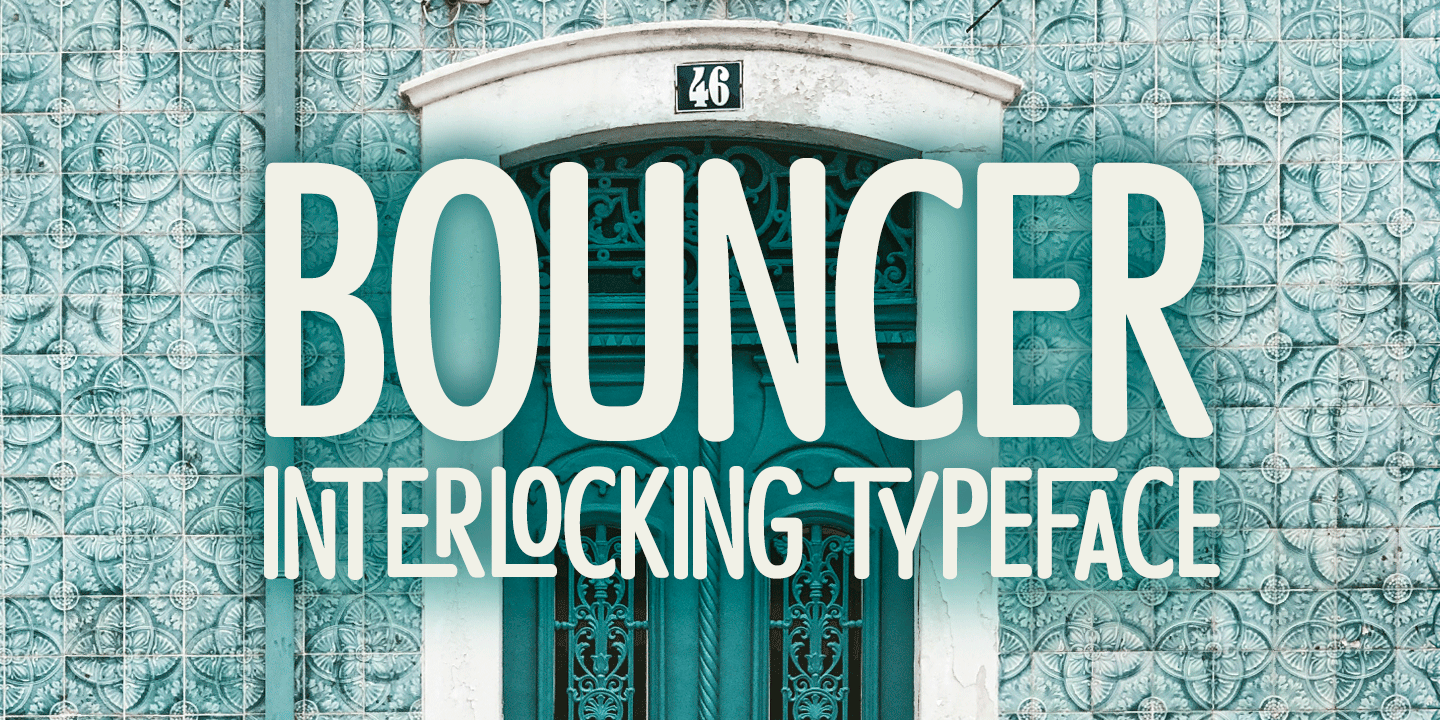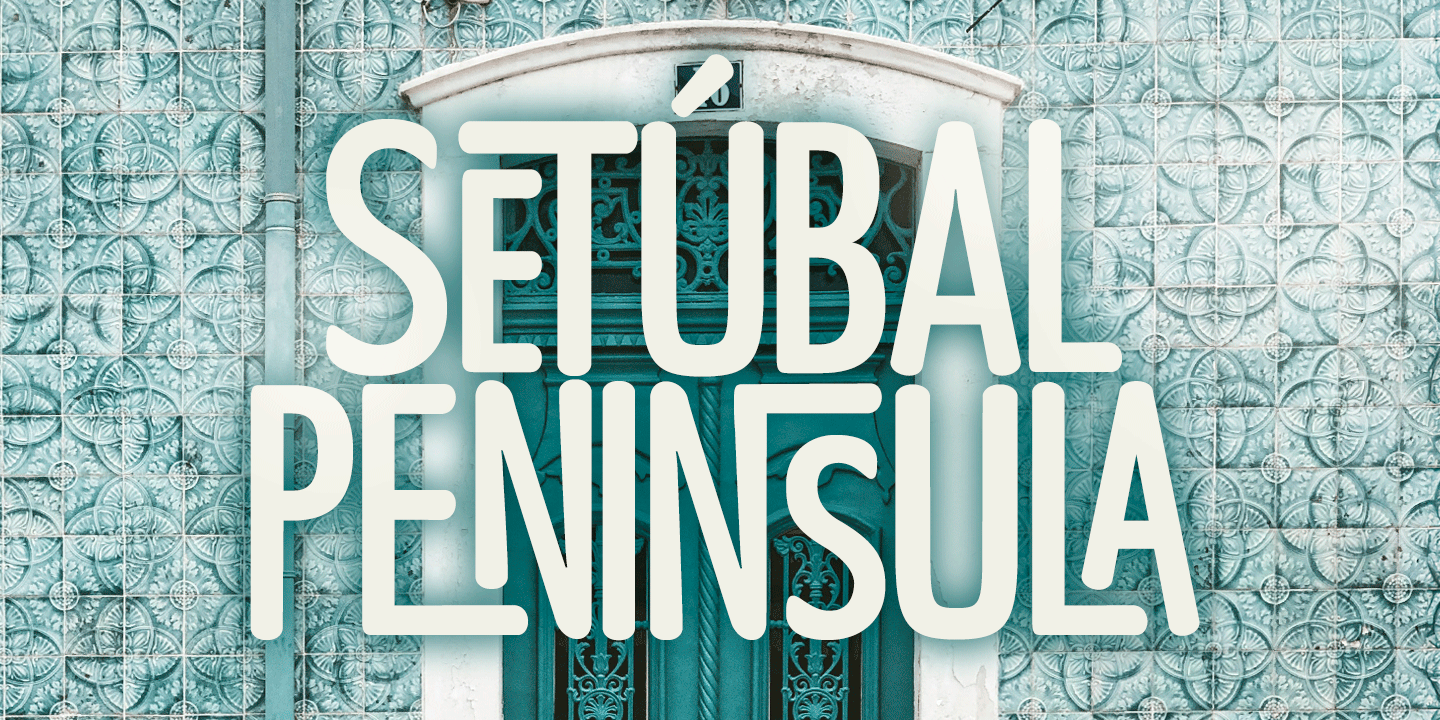
Bouncer
Bouncer is a modern sans serif with a soft, buoyant feel. Its rounded forms, uniform strokes, and tall, condensed proportions give it a clean display presence that feels both playful and contemporary. The overall look is friendly and geometric, with enough weight and bounce to stand out at a glance.
This family includes 3 styles—Regular, Light, and Bold—making it easy to shift from airy and approachable to more chunky and emphatic while keeping a consistent voice. It’s a strong fit for posters, branding, headlines, and other display work where you want something bold, quirky, and easy to read.
Designed by Fenotype, Bouncer balances minimal structure with soft corners and a kid-friendly warmth. If your project calls for a rounded sans that feels clean, cheerful, and confidently modern, this family offers a versatile starting point.